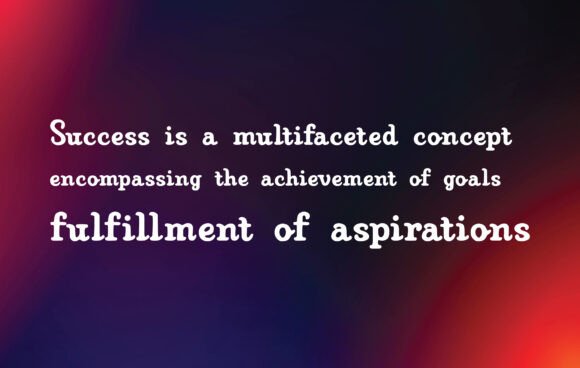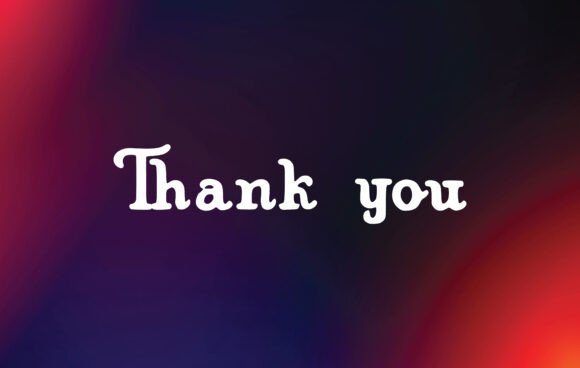
Introduction to Lochlan Font Font
Fonts play a crucial role in design, and the Lochlan Font font is a typeface that brings both character and versatility to any project. Whether you’re working on a branding project, a website, or a print design, the Lochlan Font font offers a unique style that can elevate your work.
Lochlan is a lovely and beautiful handwritten font.
This font has the potential to take your creative ideas to the highest level It is the best choice for creating eye catching logos, branding and quotes.
Key Features of Lochlan Font Font
• ✅ High-quality typeface designed for professional use
• ✅ Includes a wide range of glyphs and characters
• ✅ Ideal for logos, branding, websites, and print
Why Choose Lochlan Font Font?
The Lochlan Font font is more than just a typeface – it’s a design tool that helps you communicate your message with style and clarity. Its unique character set and versatile design make it suitable for a wide range of applications, from elegant invitations to bold headlines.
With its carefully crafted letterforms and balanced proportions, the Lochlan Font font ensures readability and visual appeal across all mediums.
What makes Lochlan Font font special?
The Lochlan Font font stands out with its unique design, exceptional readability, and versatility across various design applications.